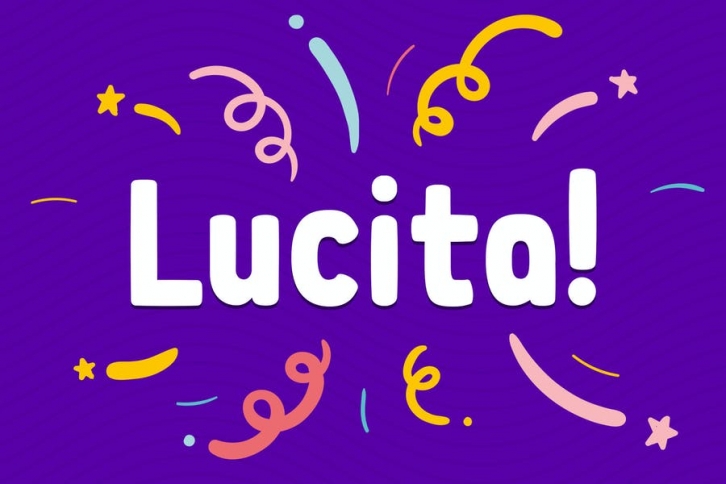
Lucita - Fun Sans Serif Font Download
Meet Lucita! It's a fun sans serif font with curvy shapes perfect for implementing in your children projects. Have fun!
Language Support: English, Portuguese, Spanish and French.